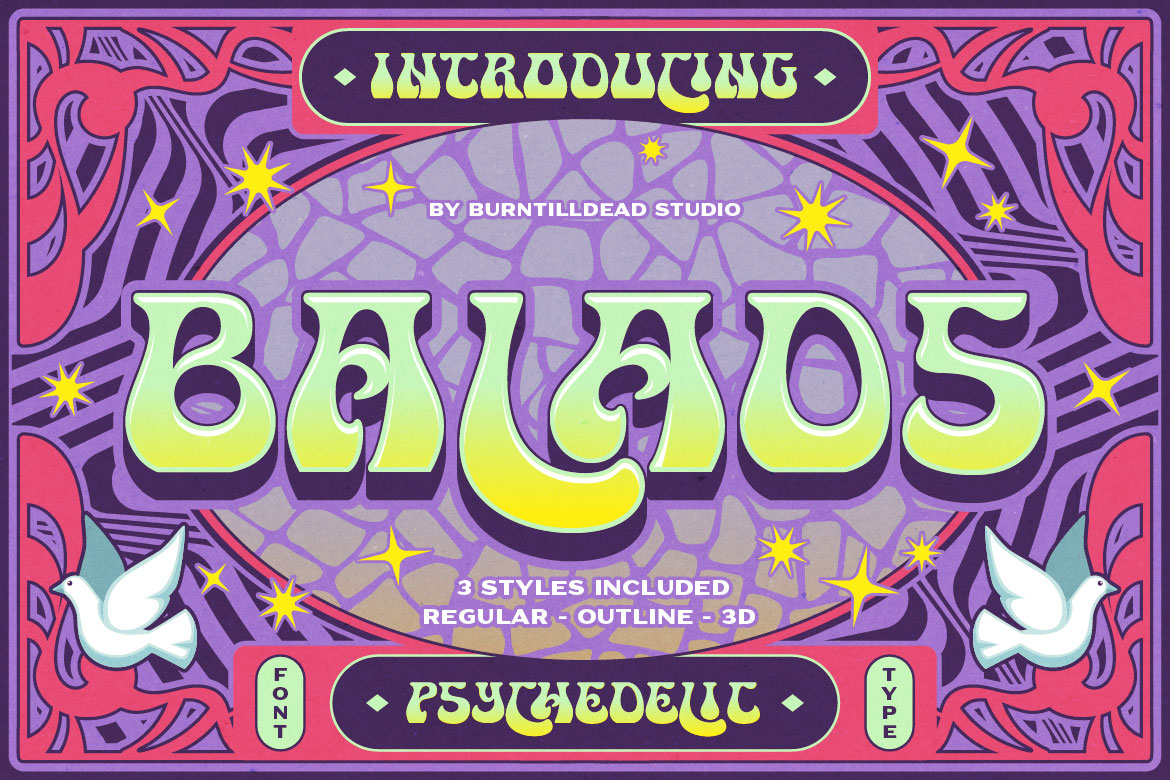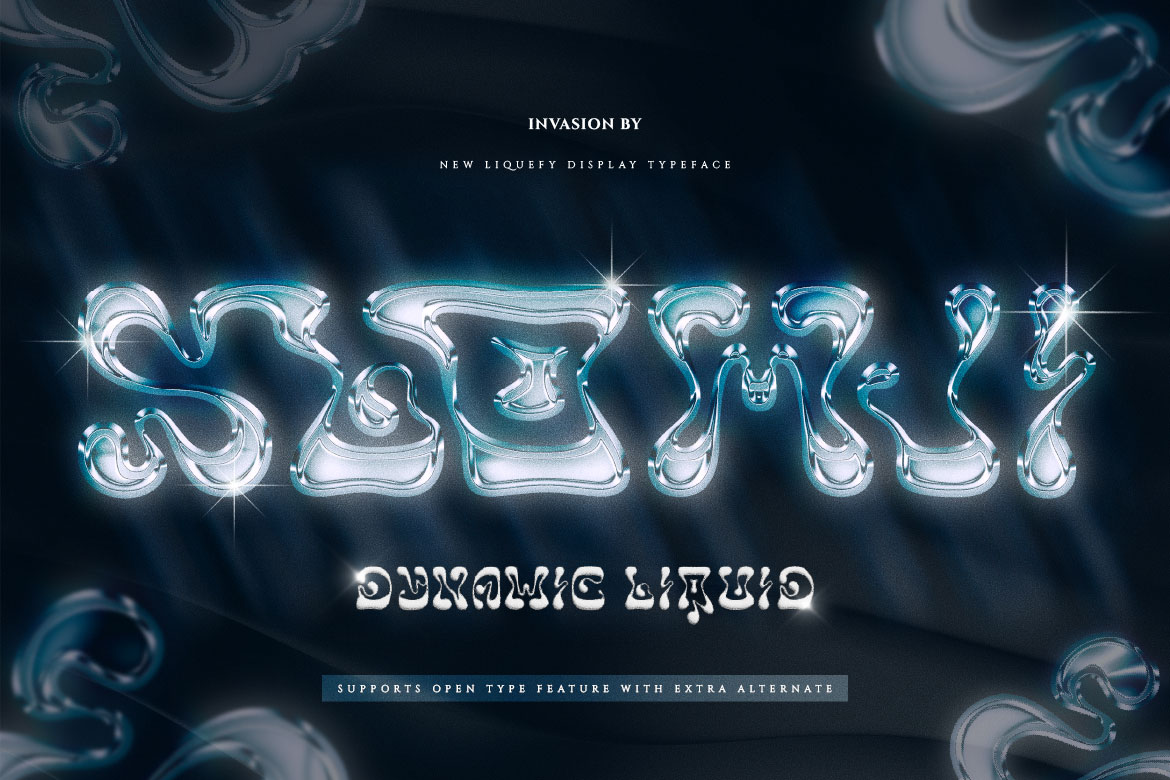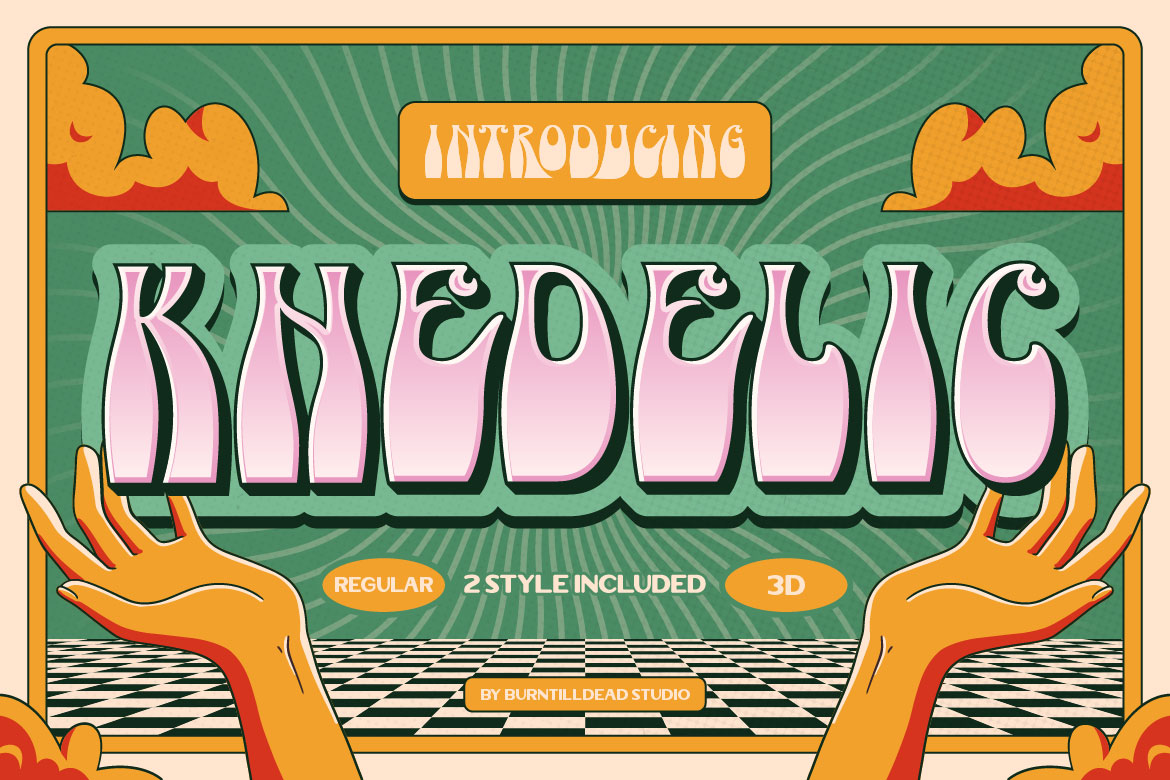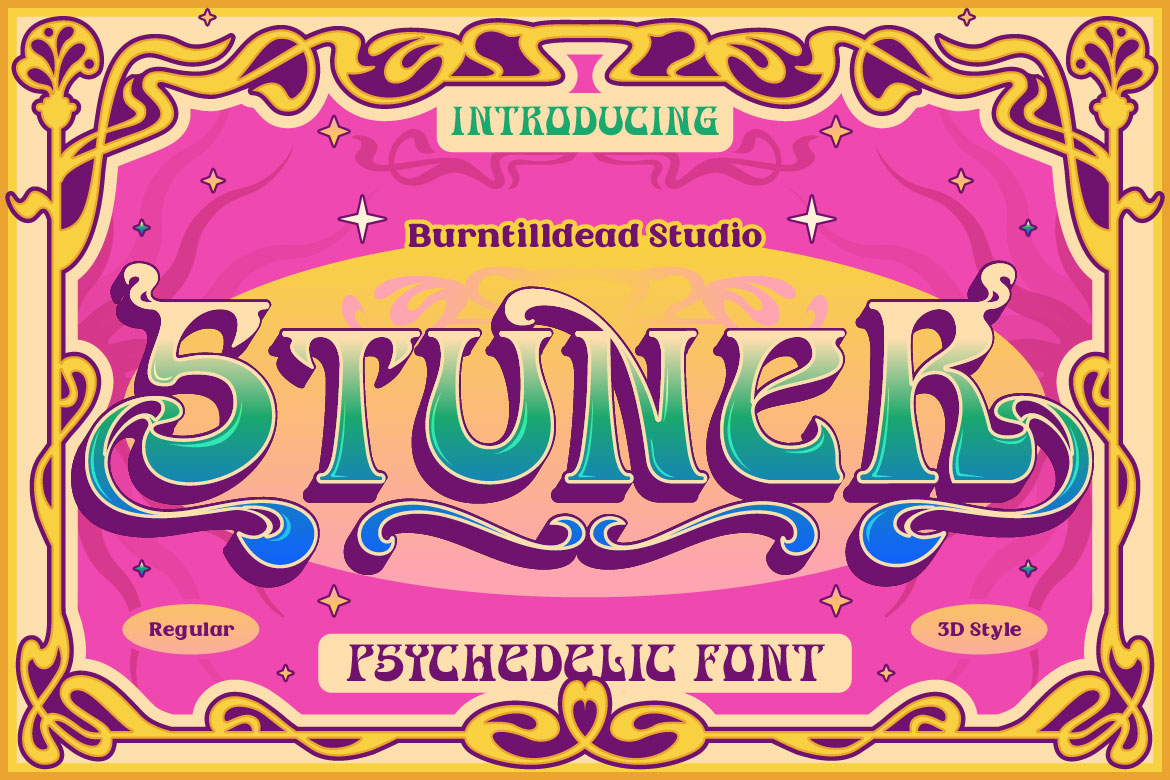
If you’re into bold, trippy, and mind-bending design styles, then psychedelic fonts are definitely your thing. These fonts are not just about letters, they’re about an experience. Born in the late 60s during the hippie era, psychedelic typography took inspiration from rock posters, music festivals, and the colorful spirit of counterculture. Fast-forward to today, they’re still here, adding funky vibes to modern projects.
Think of letters that look like they’re melting, swirling, or vibrating with energy. Psychedelic fonts are all about distortion, exaggerated curves, and often paired with bright, almost neon-like colors. The goal? To create an eye-catching, almost hypnotic visual effect that makes you stop and stare.
Back in the 1960s and 70s, psychedelic fonts exploded alongside the rise of rock ‘n roll, experimental art, and hippie culture. Posters for legendary bands like The Doors, Jimi Hendrix, and Jefferson Airplane became iconic because of their trippy, hard-to-read yet mesmerizing typography. It wasn’t about perfect readability, it was about vibes.
You might think these groovy fonts belong to the past, but nope! Designers are bringing them back in fresh, modern ways:
Step into a colorful, dreamy world with Balads!
This psychedelic typeface is heavily inspired by 70s poster art—where freedom, love, and music ruled. With chunky, melting letterforms and magical energy in every curve, Balads brings back the trippy vibes of vintage festival posters, groovy album covers, and classic rock aesthetics.
Balads radiates the spirit of freedom, peace, and good vibes. It’s bold, whimsical, and unapologetically funky—designed to transport your audience straight into a world where colors swirl, music flows, and everything feels just a little more magical. Whether you’re designing for modern projects or want to capture a nostalgic retro feel, this font will do the talking.
Included in the pack are 3 unique styles to give your creativity more room to play: Regular, Outlibe and 3D. You can easily mix and match styles for a multi-dimensional effect. Try layering the Outline with 3D, or keep things clean and groovy with the Regular alone. It’s super flexible and works great in both print and digital spaces.
Balads is not just a font—it’s a vibe. A little wild, a little weird, and a whole lot of wonderful. Whether you’re working on posters for summer music festivals, indie band merchandise, album covers, editorial layouts, or quirky creative artwork, this font gives your project that retro, hippie, and magical touch.
Stuner, a playful, psychedelic font that blends 60s-70s retro energy with a contemporary edge. Available in 2 styles: Regular & 3D. Its asymmetrical shapes give it a handmade, vintage feel, while the 3D style makes the letters look like they are getting high off the page with trippy dimensional effect.
Let Stuner turn your designs into a trippy visual experience!
Khedelic! A trippy, eye catching font that screams retro futurism! A funky retro inspired font that brings the wild vibes of the 60s dan 70s! With its wavy shape, bold look and cool 3D effect, this font is perfect for design that need a groovy, psychedelic touch. It comes with 2 style: Regular and 3D. Khedelic best for music poster, festival flyer, vintage logos, fun social media post, band merch, album covers, concert posters, creative brands and so on.
Meet Slowji, a one of a kind dynamic liquid font that inspired by psychedelic forms. Mesmerizing psychedelic liquid font that look like it’s melting right off the page. With its flowing shapes, wavy strokes and hypnotic curves, Slowji brings a sense of surreal movement to any design. Each letter feels alive — morphing, dripping, and twisting like a visual hallucination. It’s the perfect choice for projects that crave an offbeat, experimental vibe with a touch of wild imagination. This font perfect for trippy poster & zines, music festival branding, streetwear graphic, album cover and any design project that need trippy, dreamy and liquid theme.
Bumble, a psychedelic groofy display typeface. Inspired by unique retro themes. Really fun typeface for any vintage theme concept, Illustration posters, stickers, fun graphics and more.
This font have many stylistic alternates & opentype feature. The font really bring a good statement for your logo design and can be the image of a design.
Sure, psychedelic typefaces are super cool, but they can also be a bit too much if you don’t balance them right. Here are some quick tips:
Psychedelic fonts are more than just typography, they’re a vibe, a trip, and a statement. Whether you’re designing for music, fashion, or just want your work to stand out, these fonts will instantly give your project that groovy, retro meets modern feel.
So, are you ready to add some trippy energy to your designs? Go bold, go funky, and let your creativity flow.